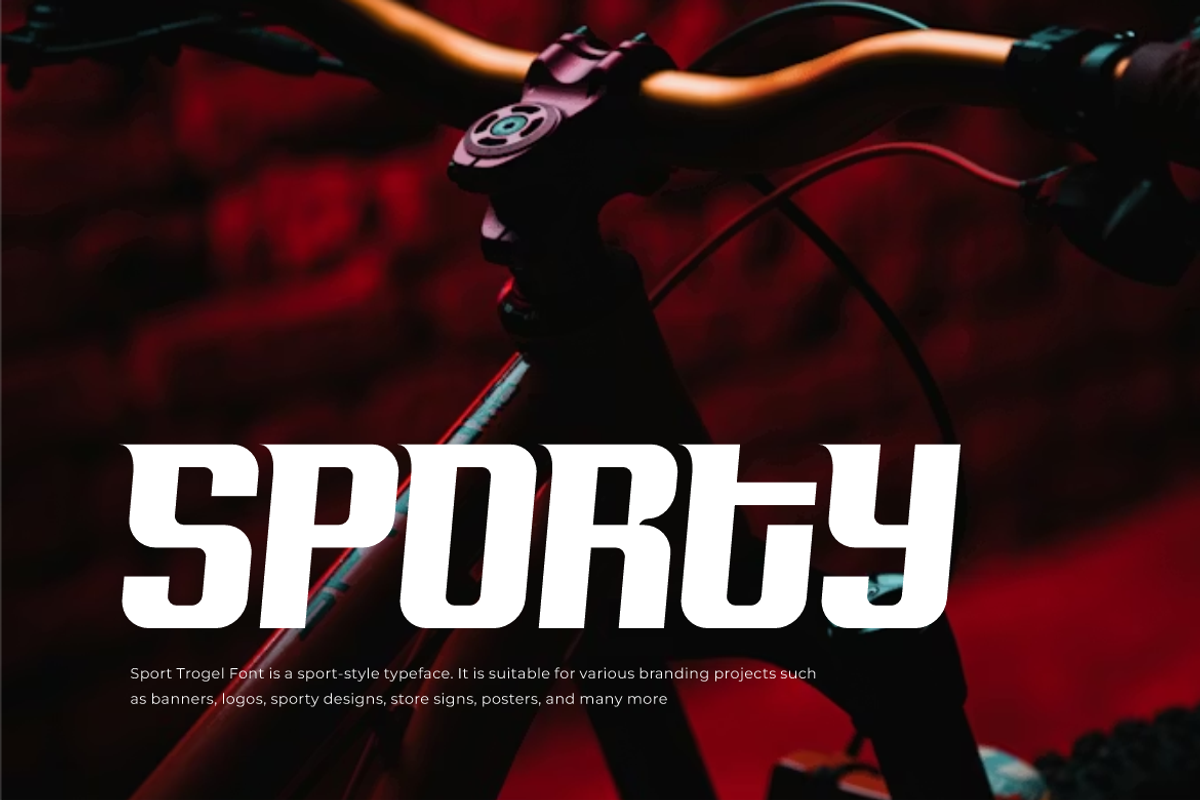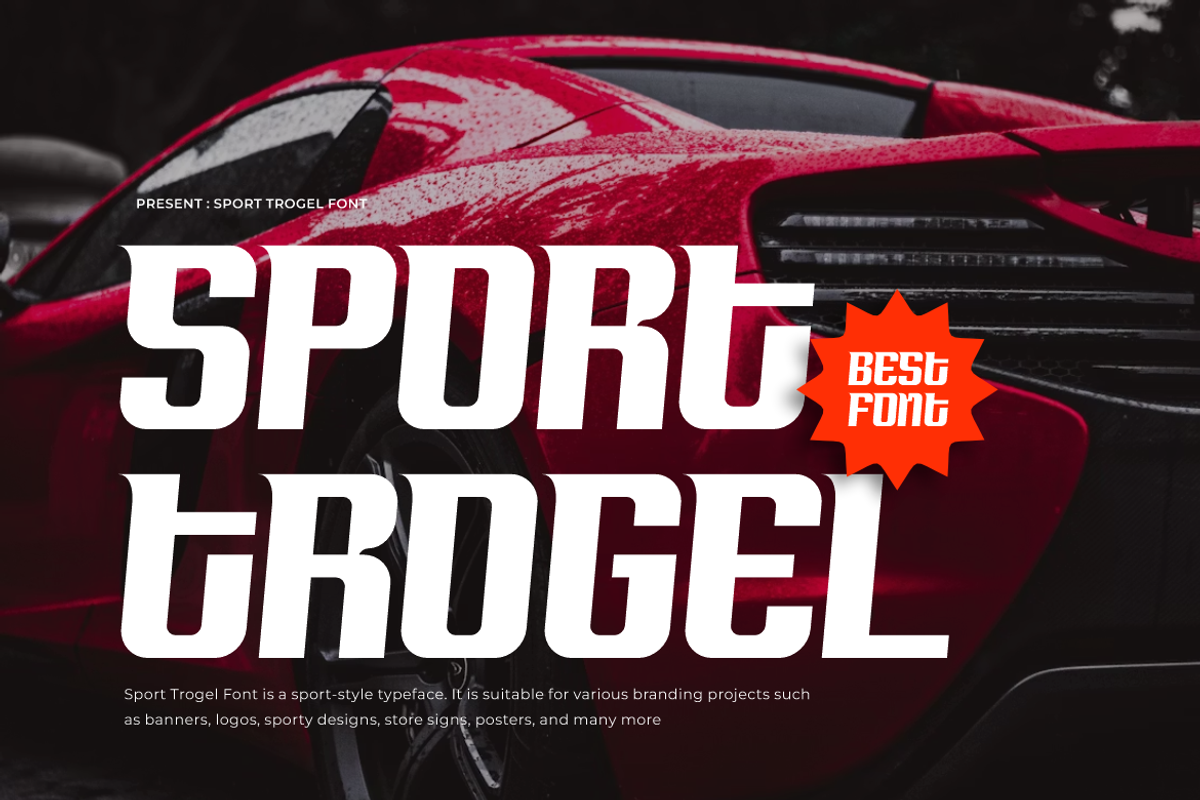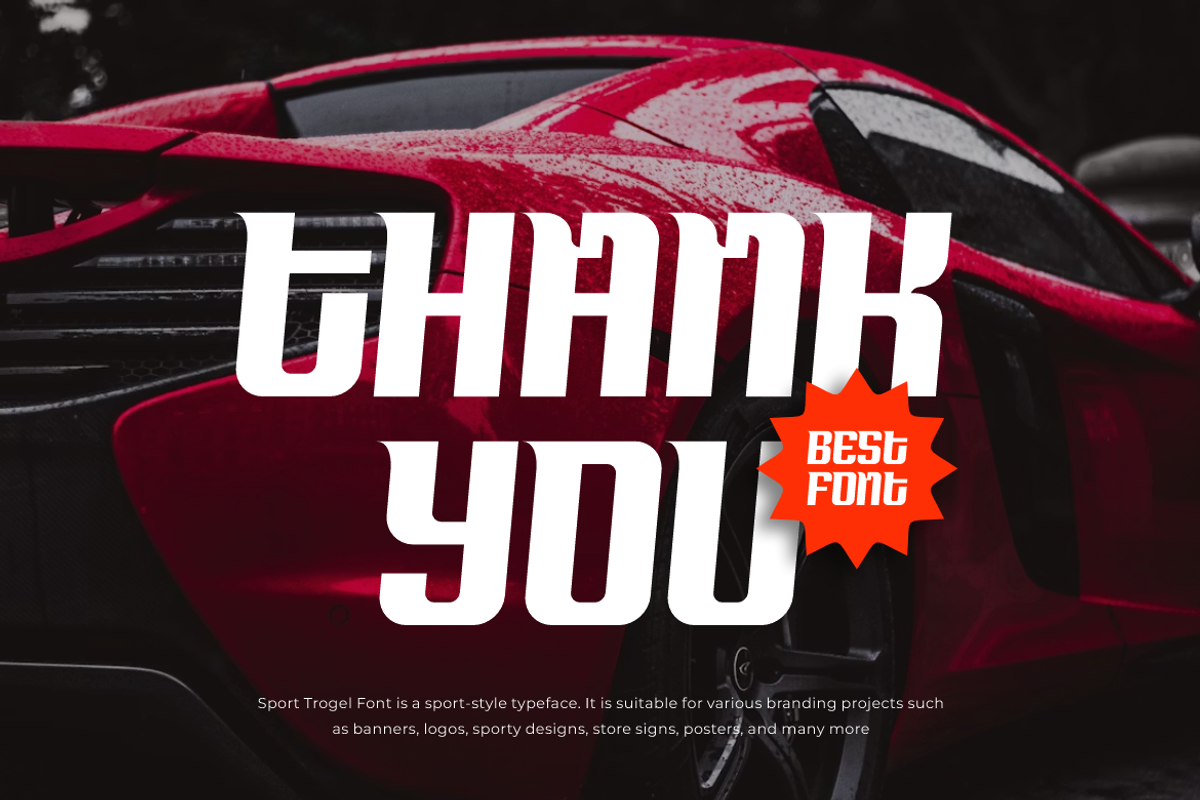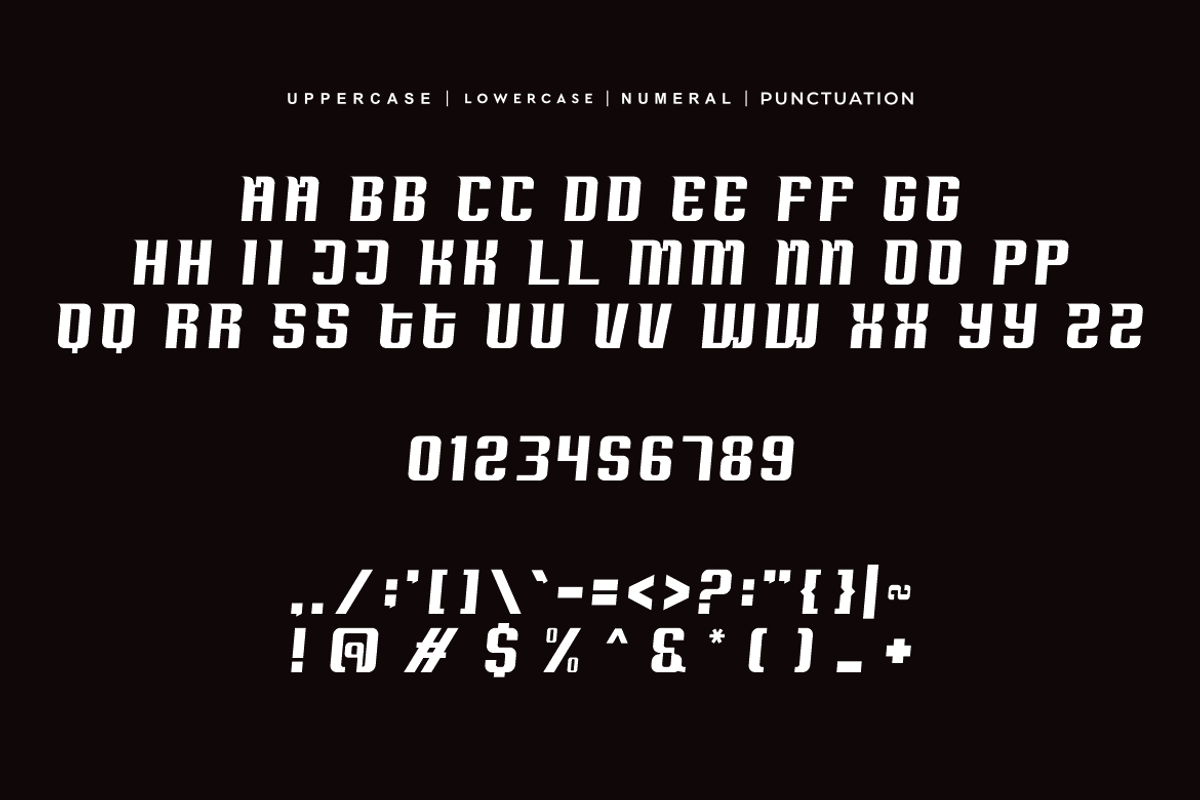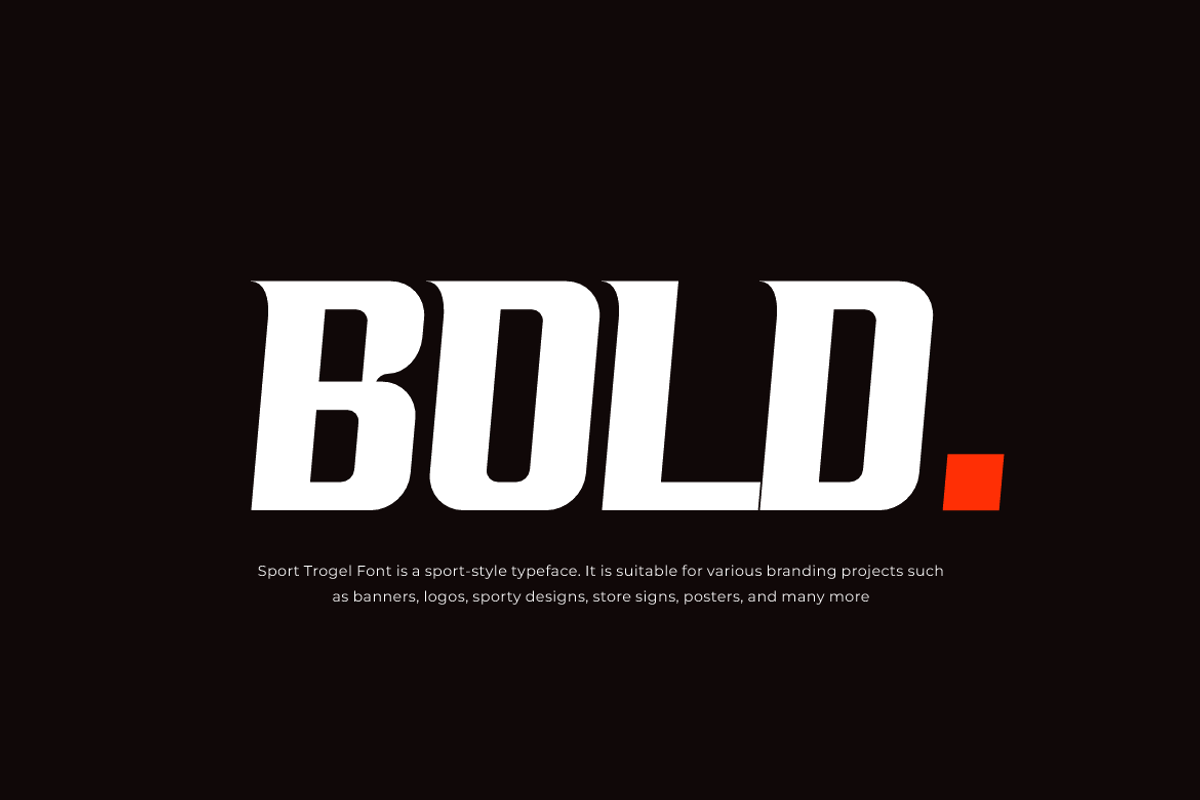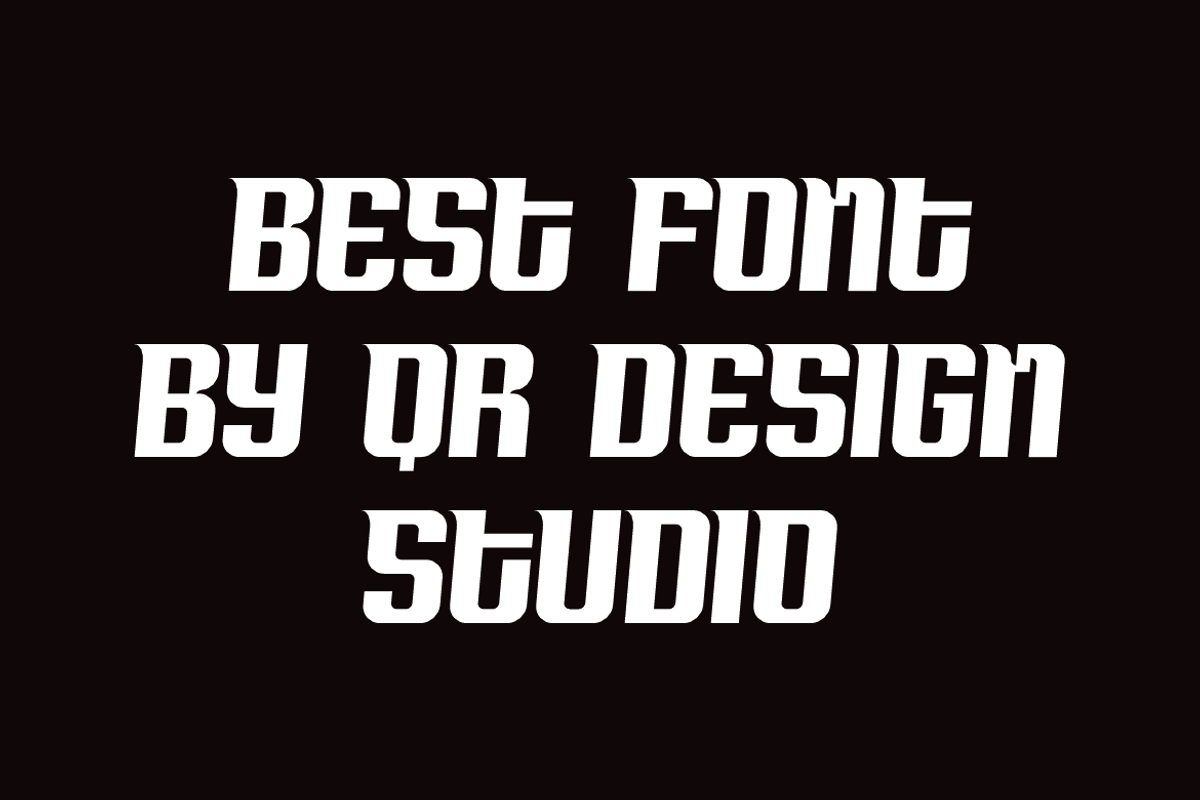
Sport Trogel - Racing Car Font
Sport Trogel Font is a bold and authentic display typeface. It’s perfect for various branding projects such as logos, sports designs, and more. This font stands out beautifully in a wide range of contexts.